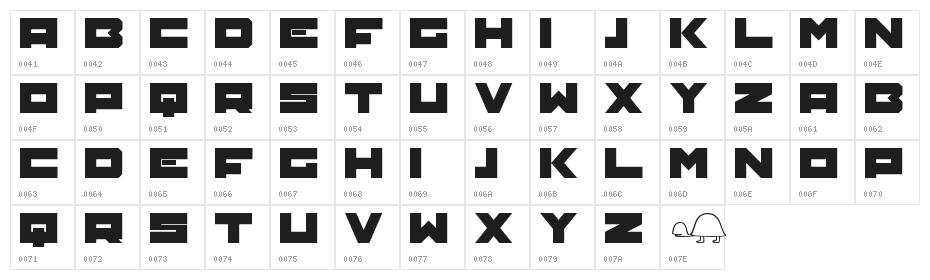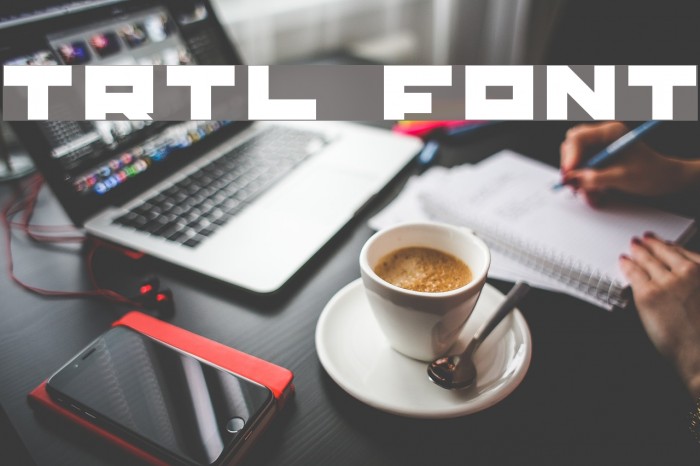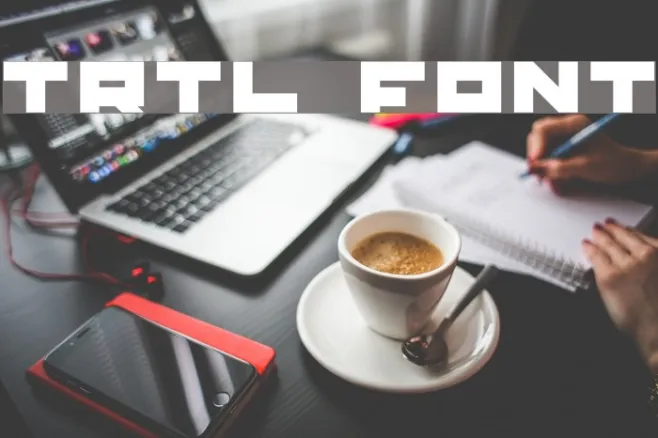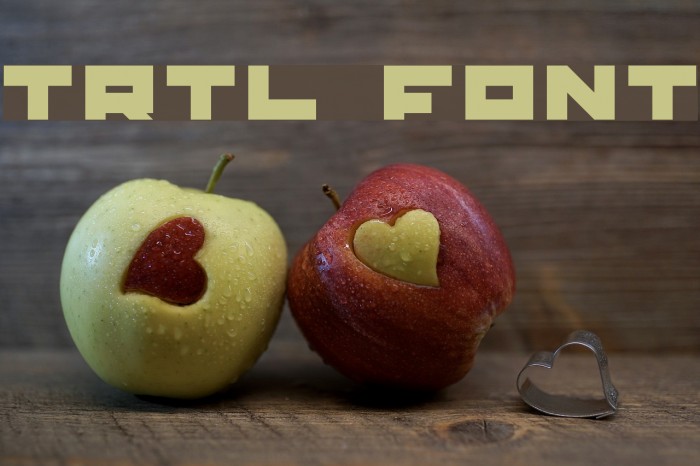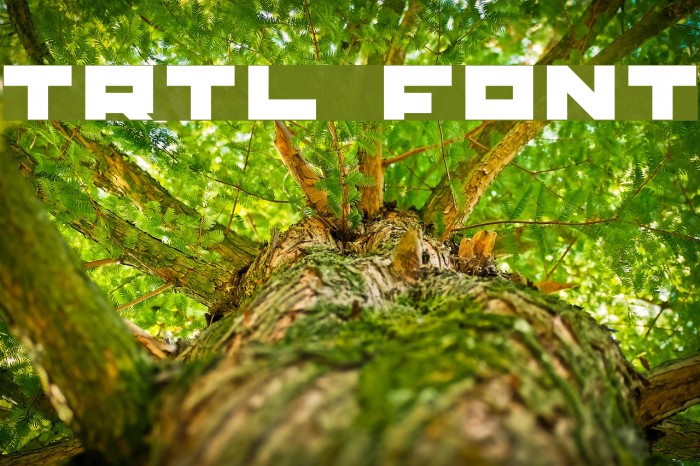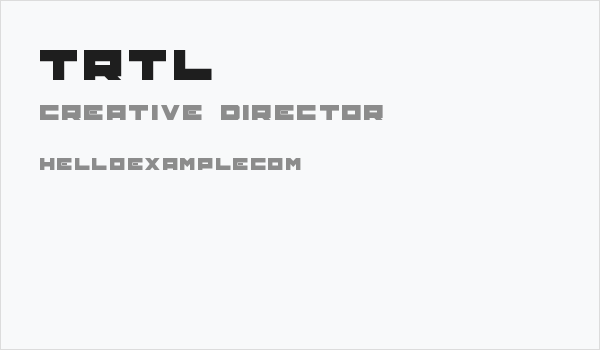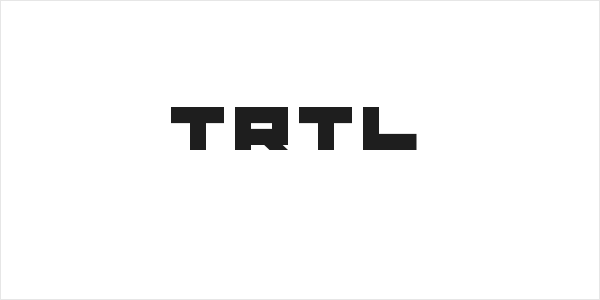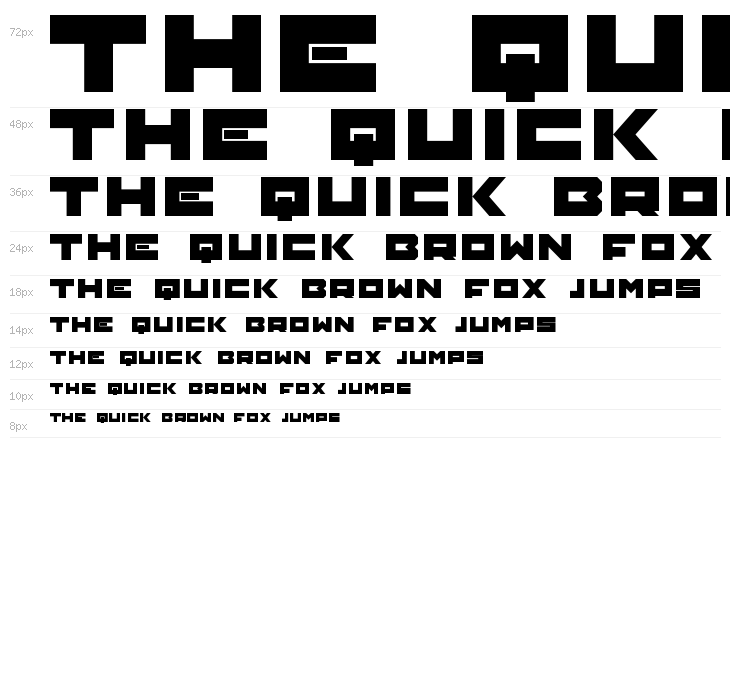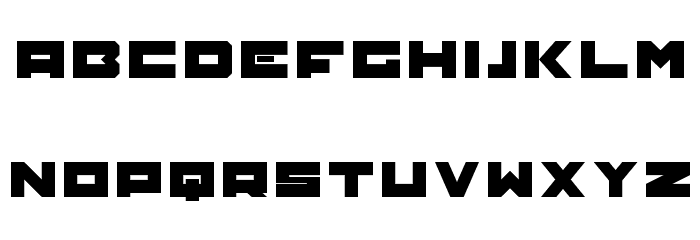
TRTL Font
TRTL Description
This font features a bold, geometric design with a distinctly modern and futuristic aesthetic. Each character is constructed with sharp angles and straight lines, creating a sense of precision and strength. The uppercase letters are particularly striking, with a blocky appearance that commands attention. The lowercase letters maintain the same geometric style, ensuring consistency across the typeface. The numerals and special characters are designed to match the boldness and angularity of the alphabet, making this font ideal for projects that require a strong visual impact.
| Proposed Projects | Ideal for technology branding, video game titles, sci-fi movie posters, and modern logos. |